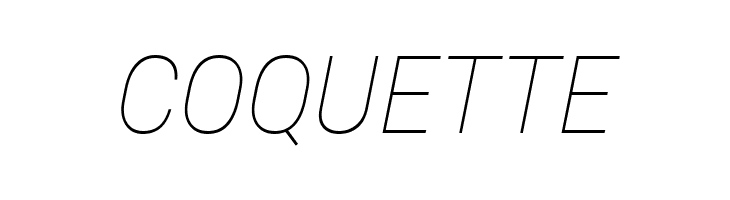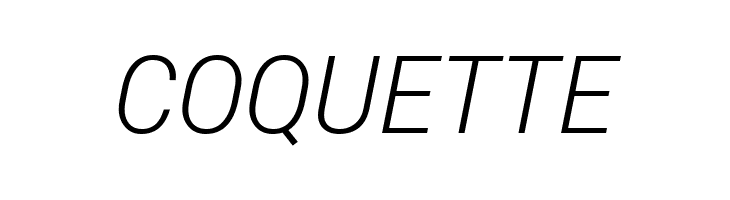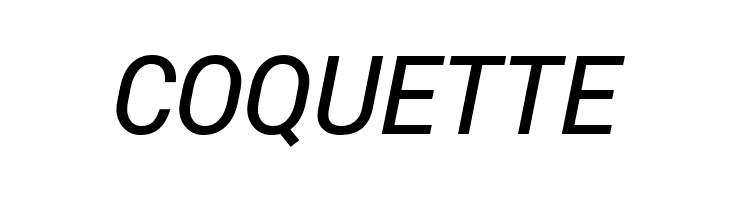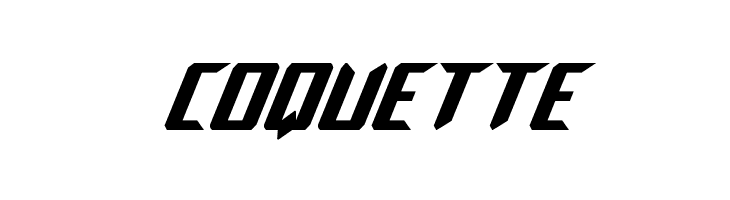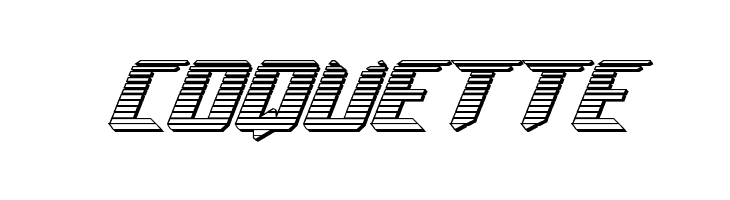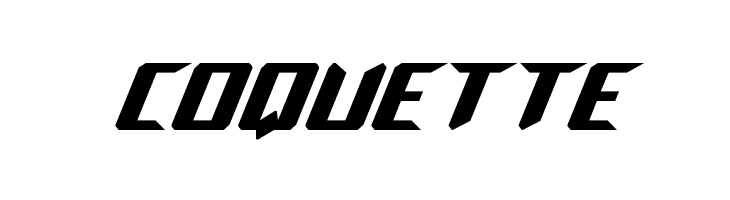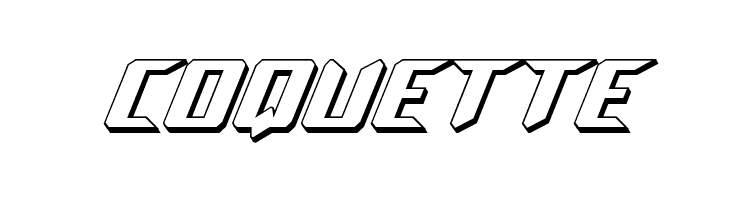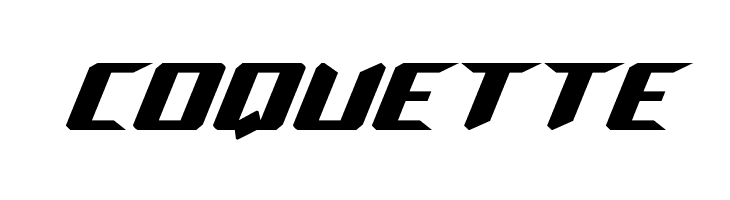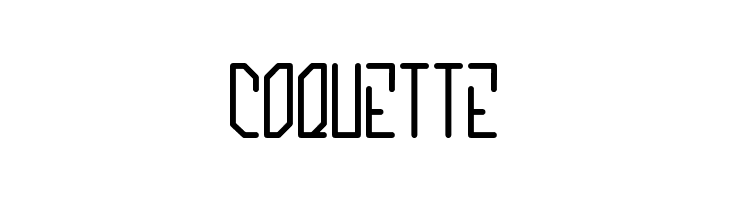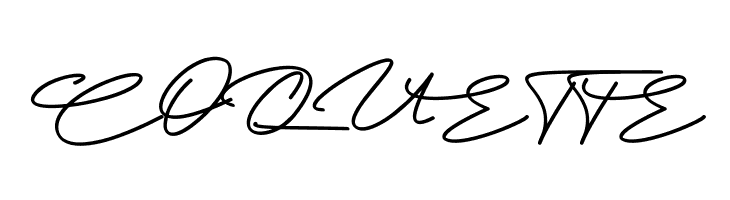
A clean, modern sans-serif font with a light weight and rounded edges.
A sleek, modern sans-serif font with a light, italic style.
A modern, geometric sans-serif typeface with clean lines and balanced proportions.
A modern, medium-weight sans-serif font with an italic style, offering clarity and elegance.
A modern, thin sans-serif font with clean lines and balanced proportions.
A modern, thin, and italic sans-serif font with a clean and minimalist design.
An elegant, flowing script font with a sophisticated and graceful style.
A modern, elegant script font with flowing, cursive letters and graceful swashes.
A fluid and elegant script font with a natural handwriting style.
A playful, hand-drawn font with a textured, chalk-like appearance.
A playful, whimsical font with irregular, hand-drawn letterforms.
A bold, modern font with a 3D shadow effect and geometric design.
A bold, graffiti-inspired font with playful, rounded characters.
A bold, graffiti-style font with rounded, dynamic shapes and a playful, urban aesthetic.
A casual, handwritten font with a playful and informal style.
A playful, bold, and cartoonish font with thick outlines and irregular shapes.
A futuristic, geometric font with uniform stroke thickness and angular letterforms.
A bold, futuristic font with geometric shapes and sharp angles.
A futuristic, geometric font with bold, angular lines.
A bold, angular font with a futuristic and edgy design.
Bold, angular font with a modern, edgy style.
A bold, angular font with a futuristic and edgy style.
A playful, robot-themed decorative font with bold, stylized characters.
A bold, angular, and futuristic font with a slanted design.
A bold, 3D futuristic font with sharp angles and a tech-inspired look.
A futuristic, chrome-like font with bold, angular characters and a 3D effect.
A bold, angular, and condensed font with a futuristic and dynamic style.
A bold, futuristic font with sharp angles and a dynamic slant.